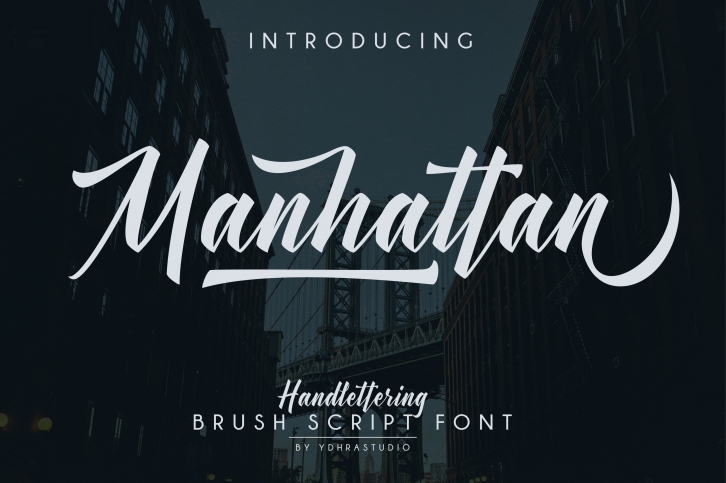
Manhattan Brush Script Swash is a beautiful font that was designed by YdhraStudio. It's a great choice for designers and creatives who need such a font. It was released on May 23, 2018 and the file size is 10.64 MB. Manhattan Brush Script Swash may give a more youthful, expressive and casual look to your project. It is a very beautiful, refined, elegant, and high-quality font.